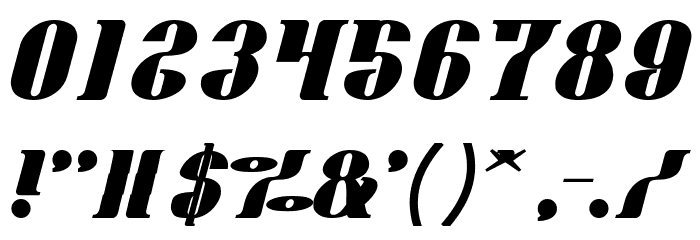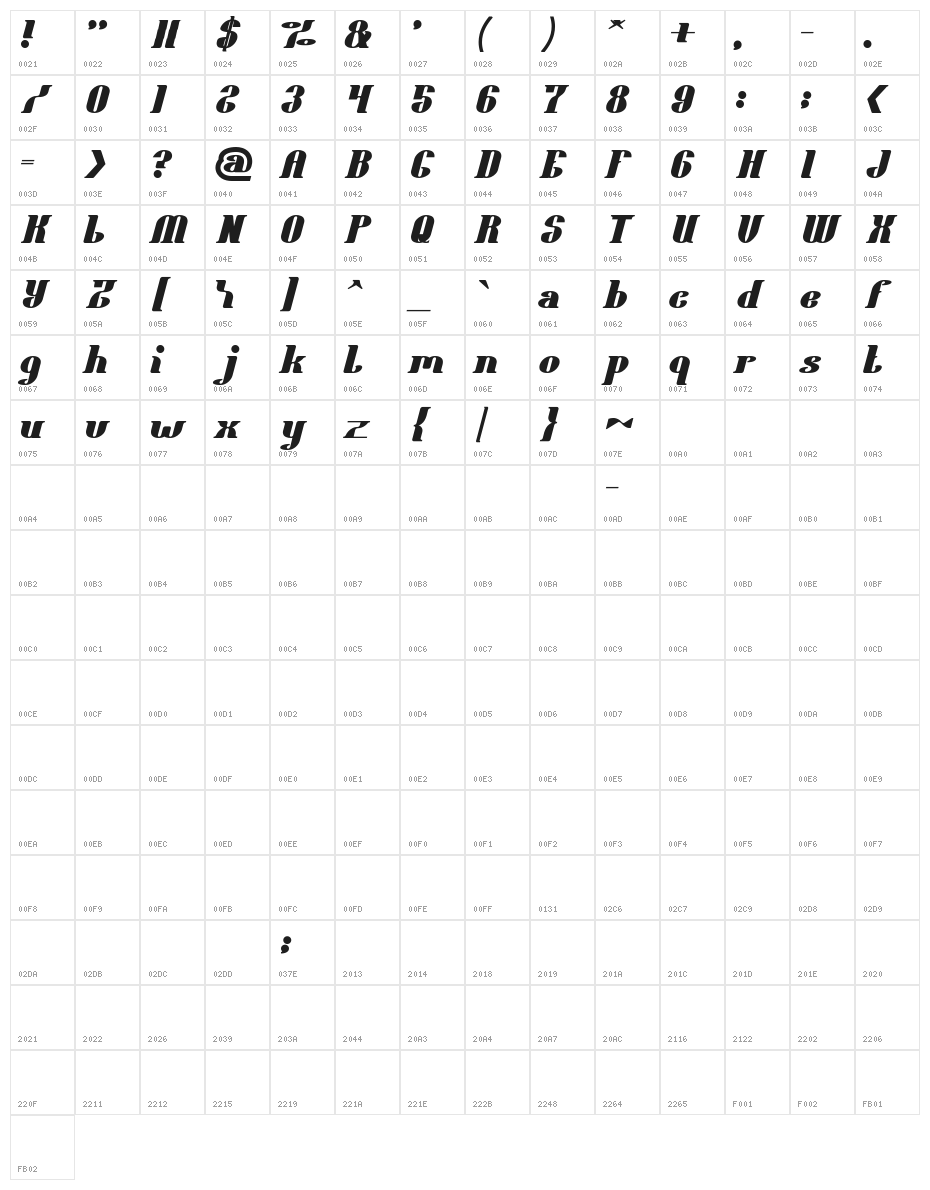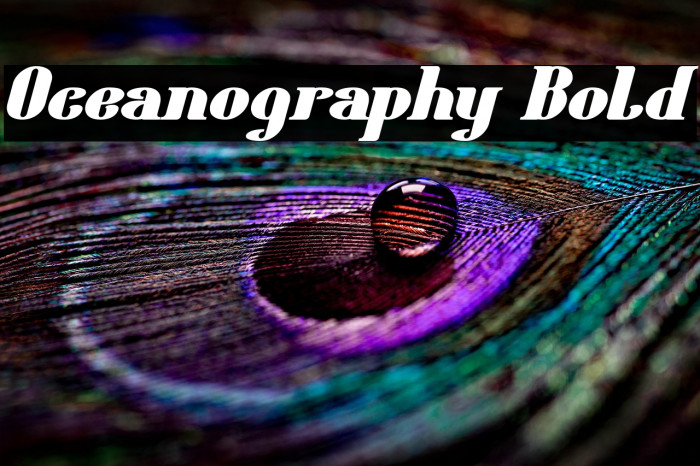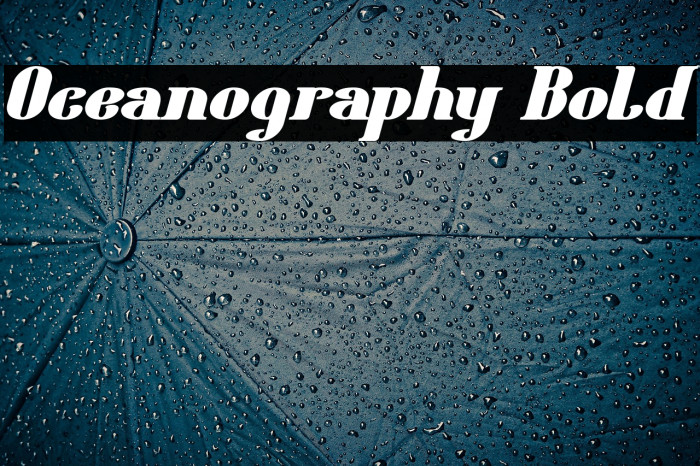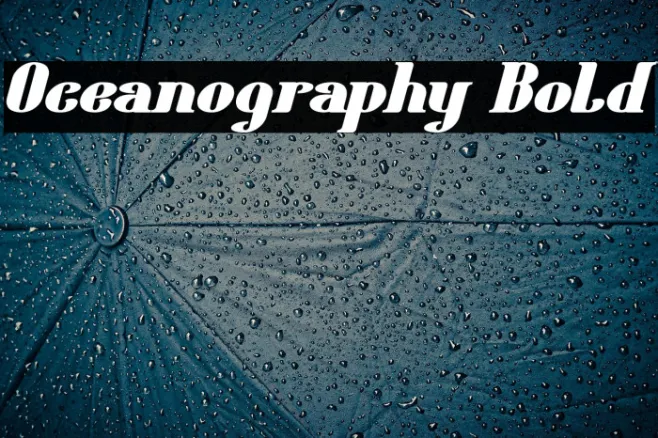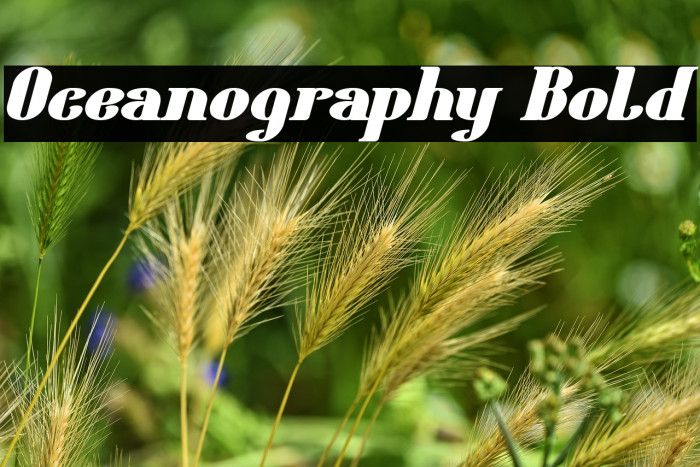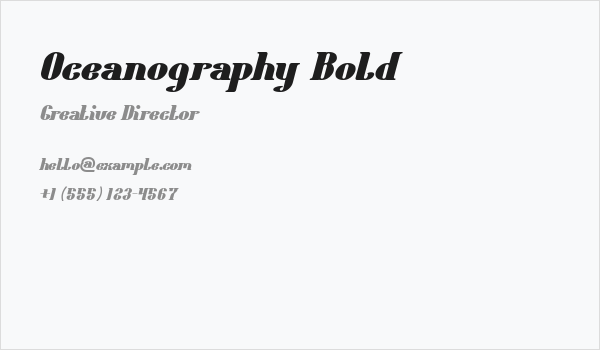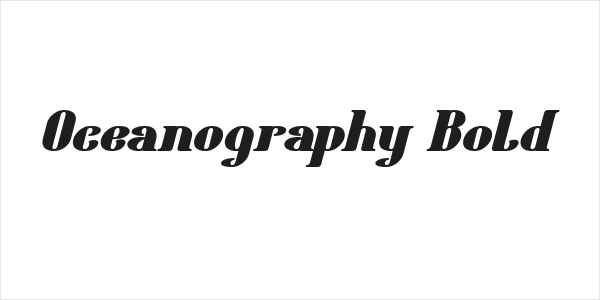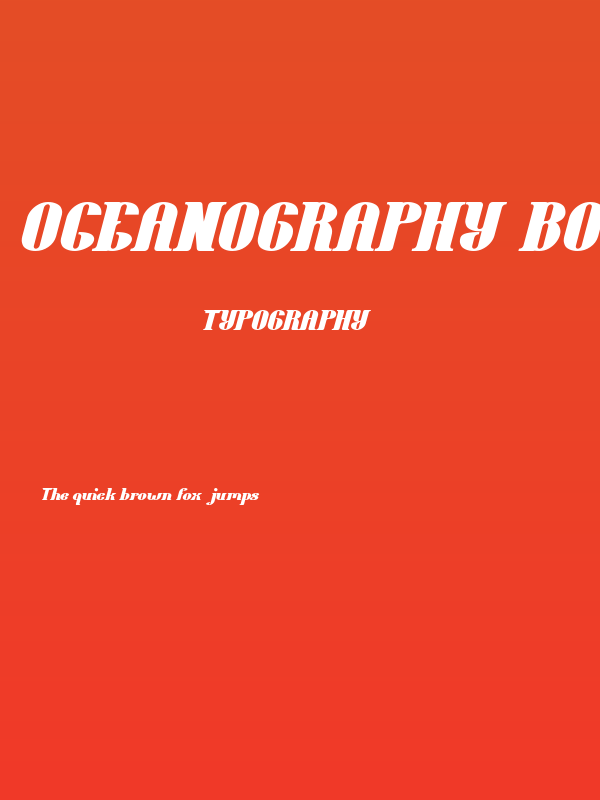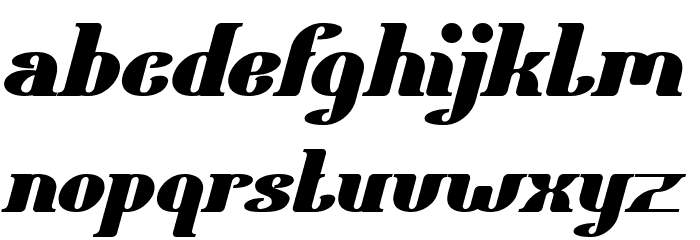
Oceanography Bold Font
Oceanography Bold Description
This font features a bold and dynamic style with a strong presence. The characters are designed with a slight slant, giving them a sense of movement and energy. The strokes are thick and consistent, providing a robust and impactful appearance. The uppercase letters are particularly striking, with unique curves and angles that add to the font's distinctive look. The lowercase letters maintain this boldness while offering a more fluid and connected feel. Numbers and special characters are equally bold, ensuring uniformity across all text elements. This font is ideal for making a statement and capturing attention.